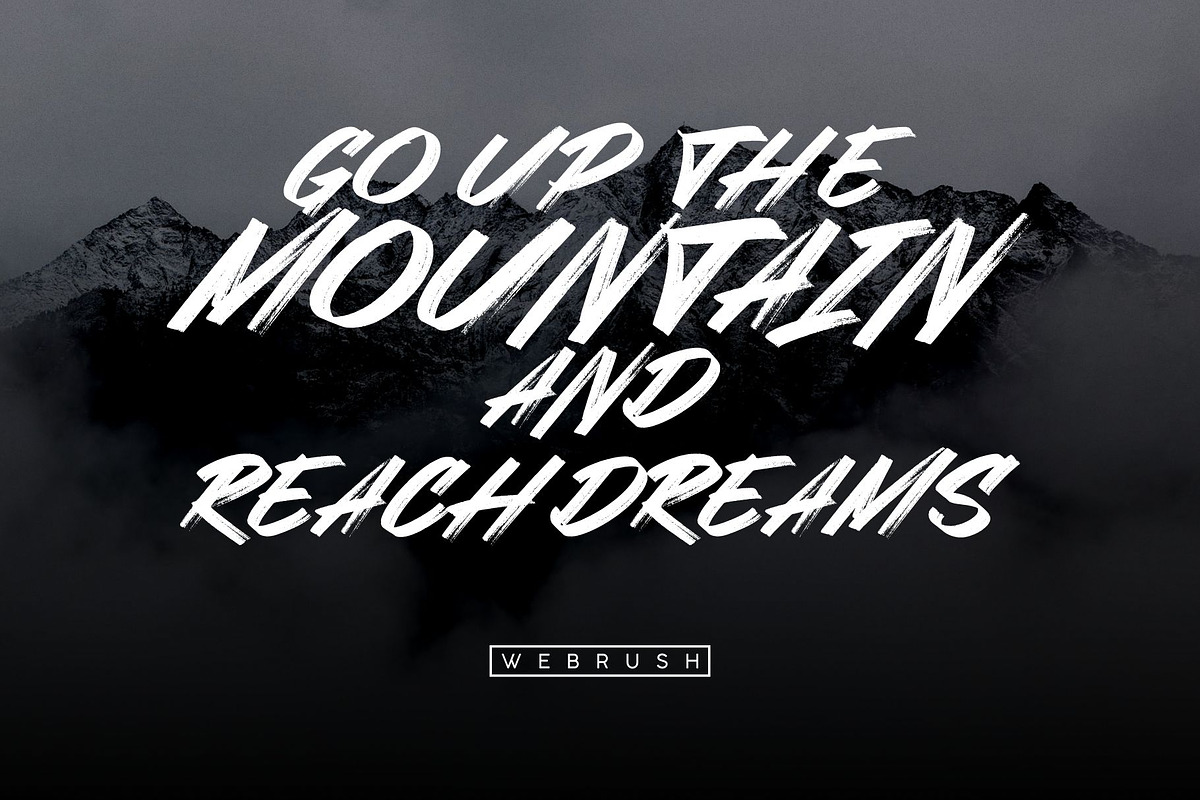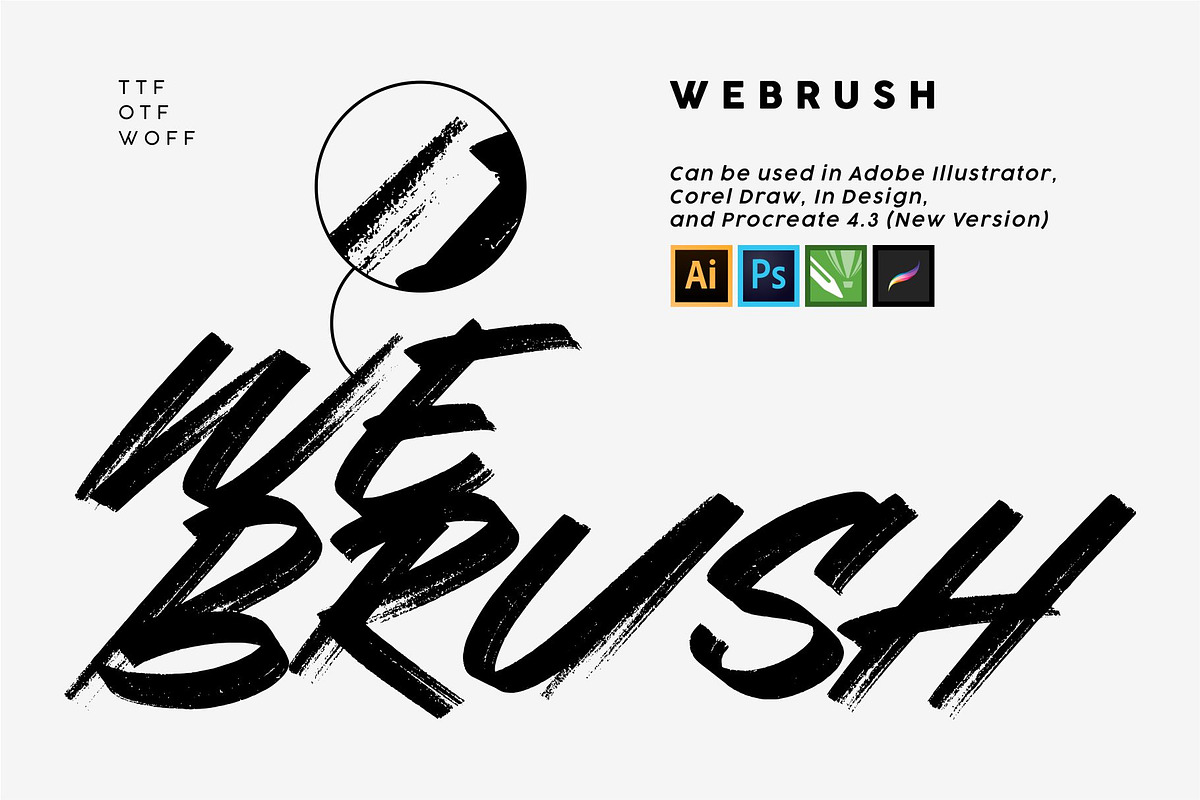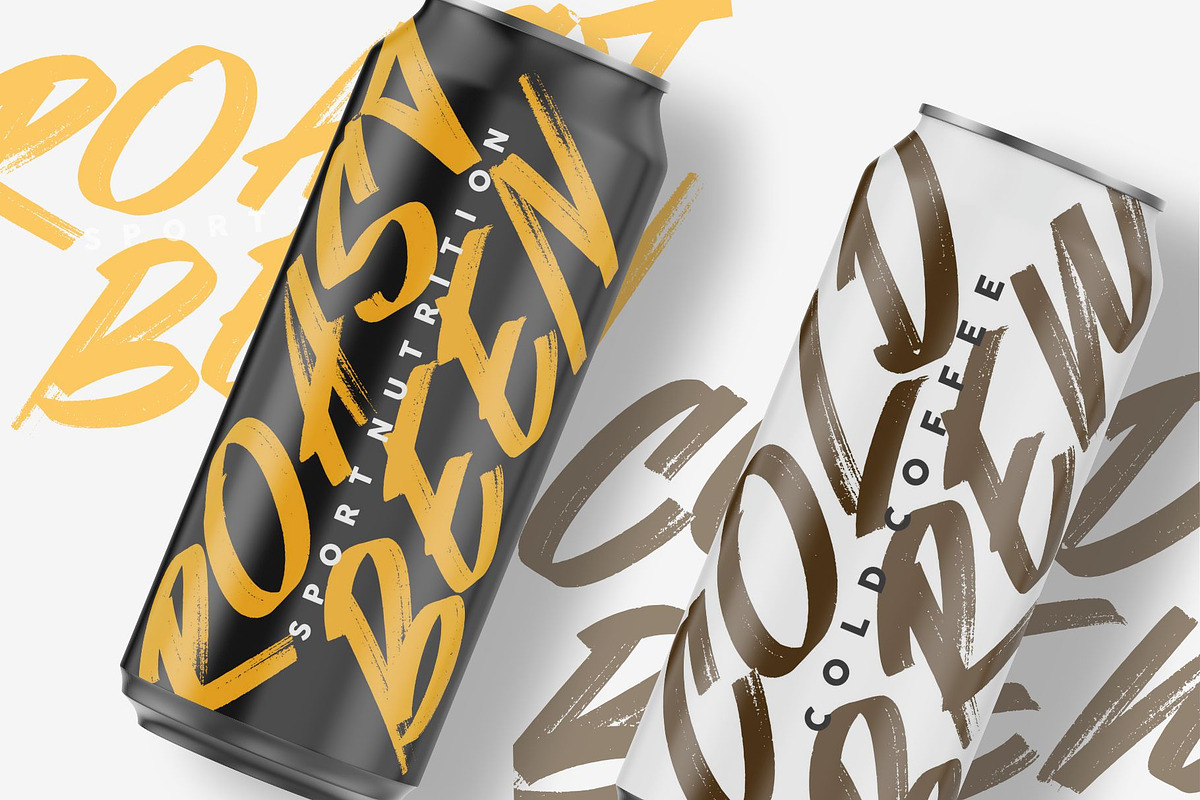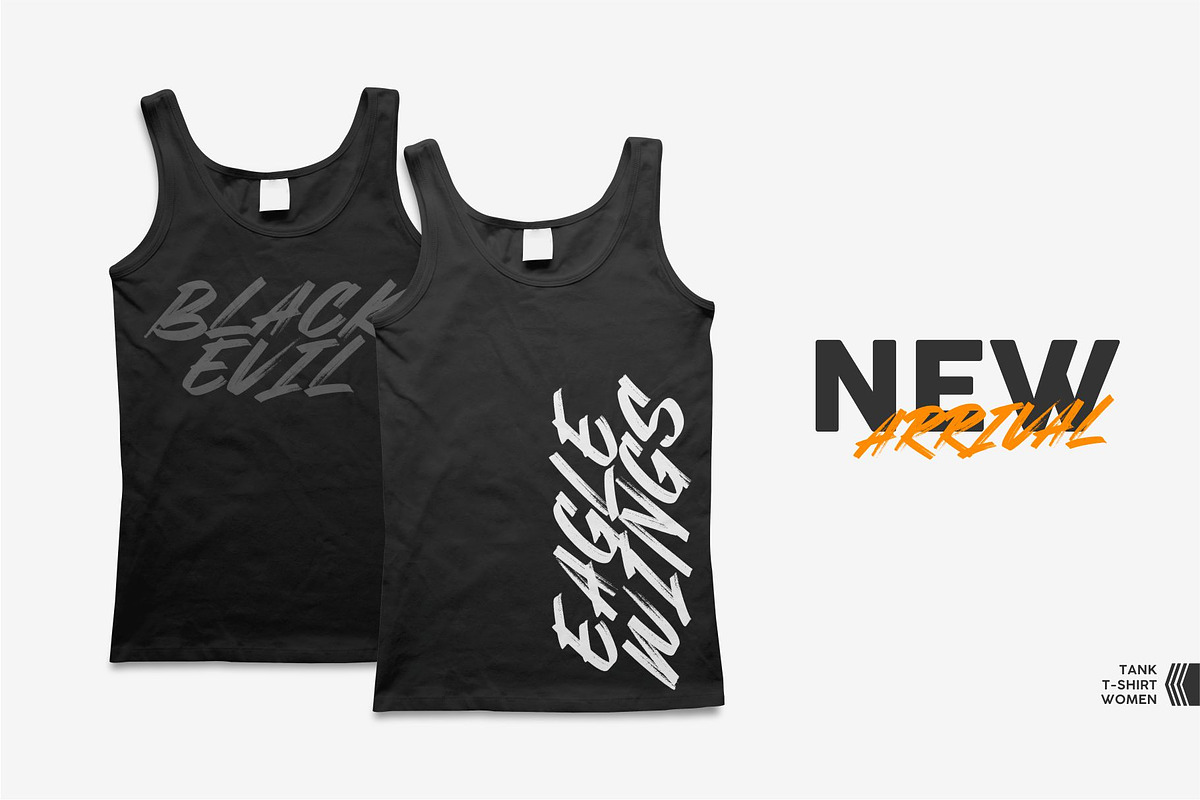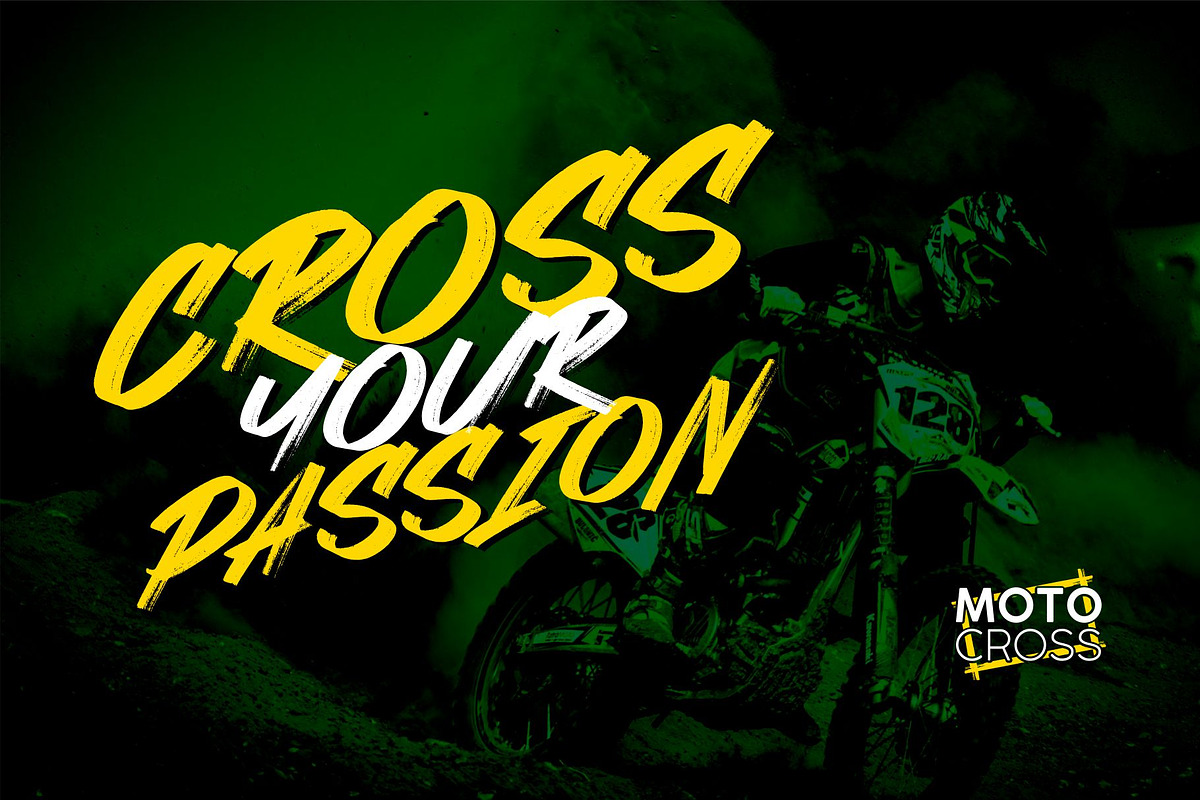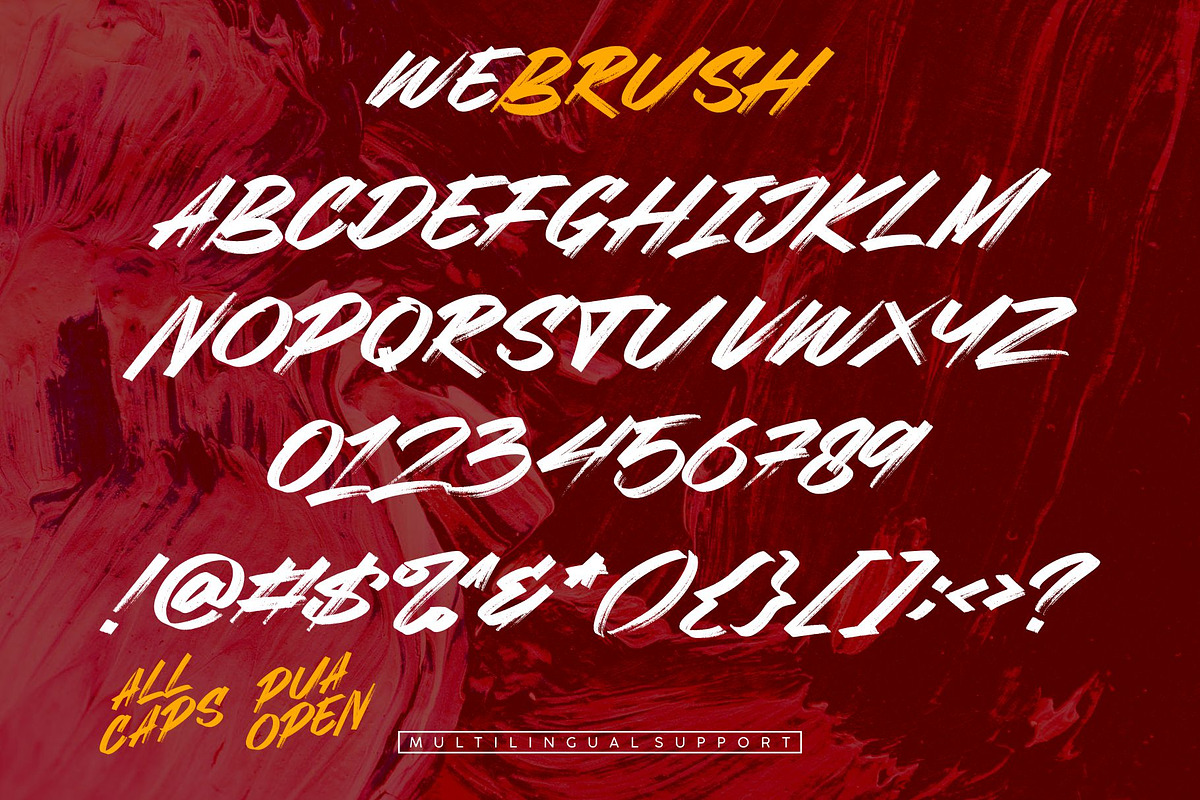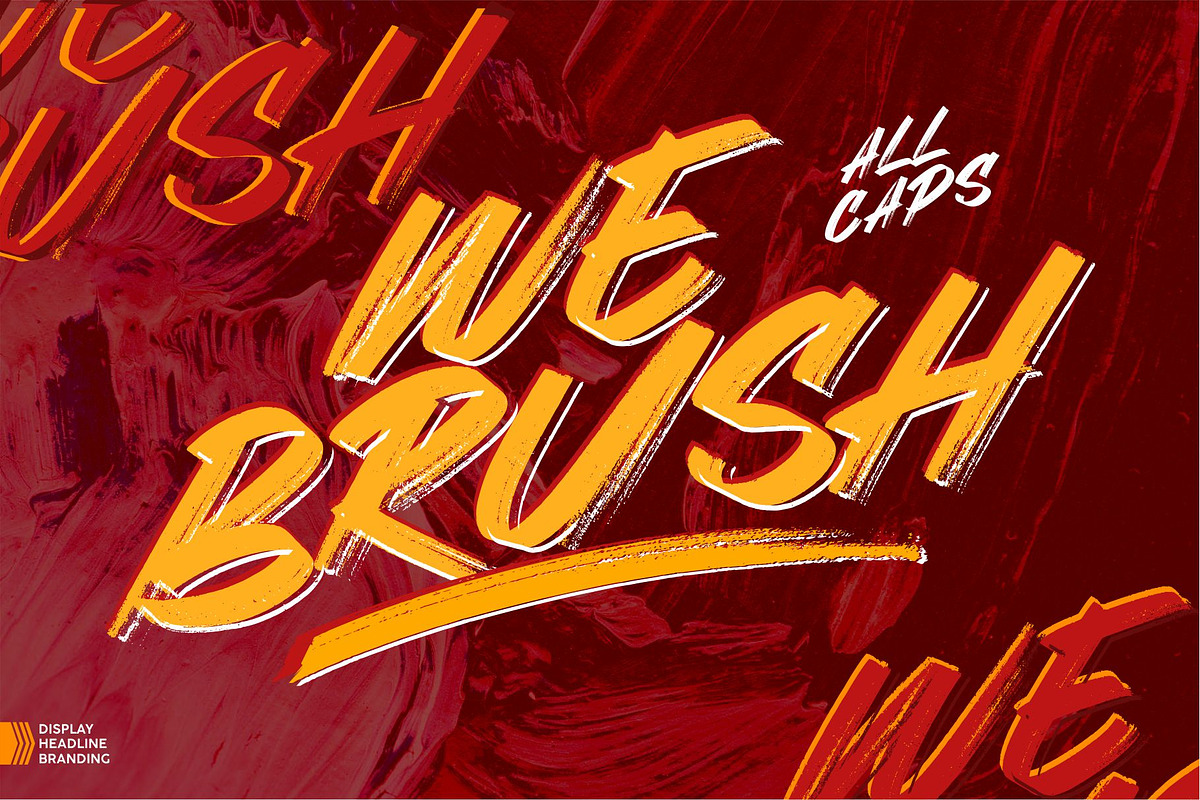
Webrush
Introducing Webrush!
Webrush combines attractive curves with a fresh urban edge; delivering a stylish script which is guaranteed to add an eye-catching appeal to your logo designs, brand imagery, handwritten quotes, product packaging, merchandise & social media posts.
- Detailed dry brush